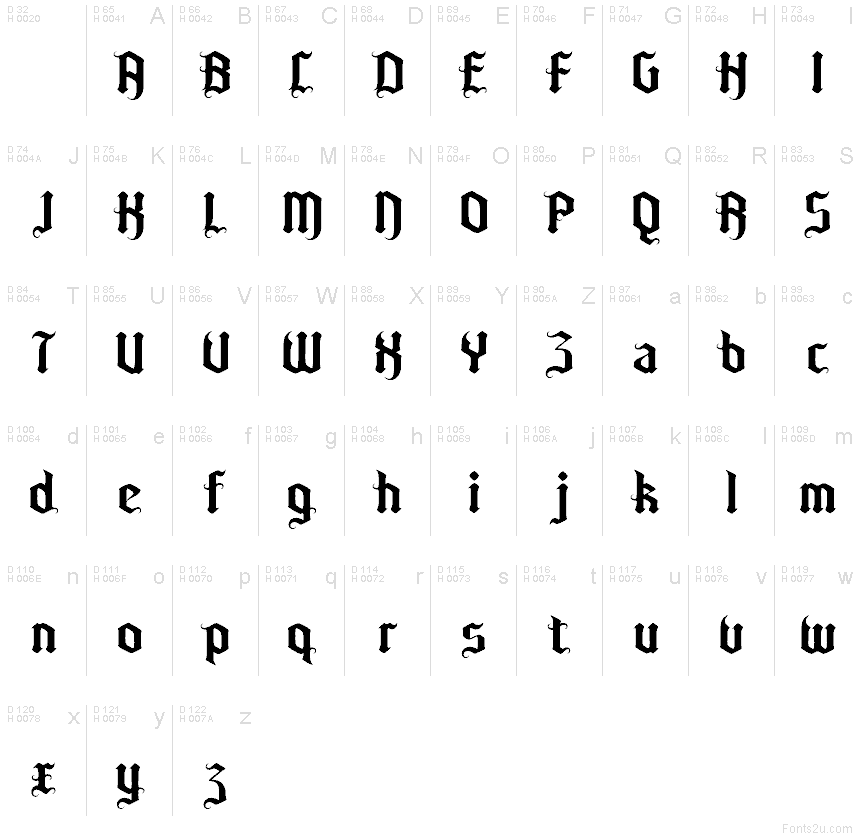
CSArtemioDrawn-Regular Demo
CS Artemio Drawn font by Craft Supply Co is a gothic masterpiece with intricate detailing and ornate flourishes. This font perfectly balances historical reverence and a commanding presence, bringing medieval influence out in style. If you are a fan of blackletter types but find some difficult to read, this option offers more clarity while maintaining that unique look.
Use it in tattoos designs, vintage apparel prints, book covers (including children’s), video games UI/UX interfaces, music album covers, ornament sketches, or comics captions. It can even work for logos despite its girthy feminine flare. Get CS Artemio Drawn now for free download and usage!